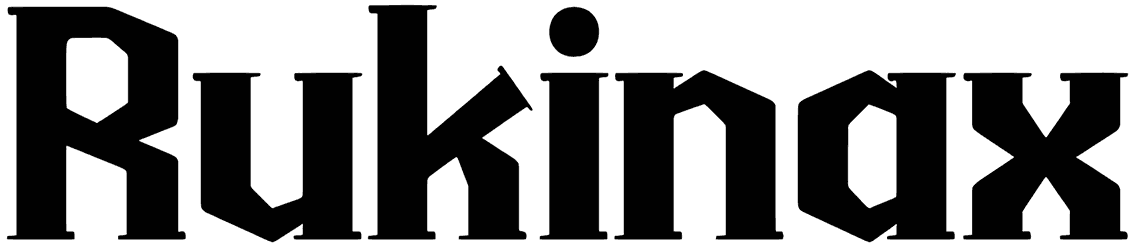
Rukinax Font
If you’re making a Halloween-themed poster, card, or flyer, you’ll be pleased with the results if you use the rough Halloween font, Rukinax. While it is true that this geometric font is lacking some of the number letters, you should not wait for another second to install it.